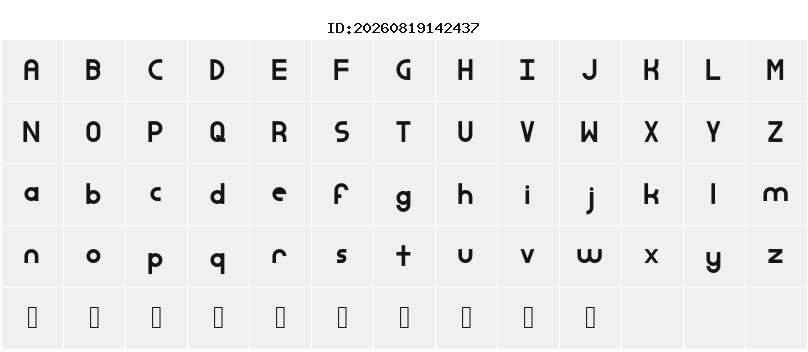
Simple Dandy Preview
• Font Name: Simple Dandy
• Full Font Name: Simple Dandy
About Simple Dandy.ttf
Simple Dandy.ttf is a modern, elegant sans-serif font designed for ultimate readability and visual harmony. Perfect for branding, headlines, web design, and print materials.